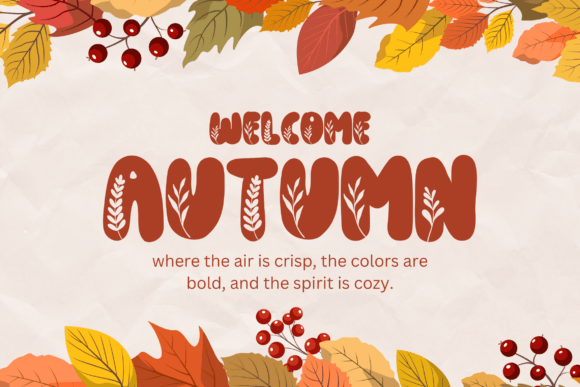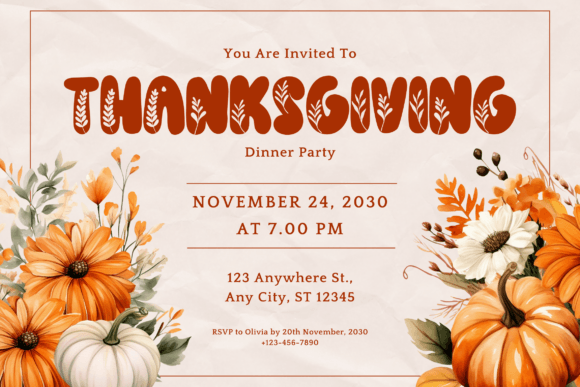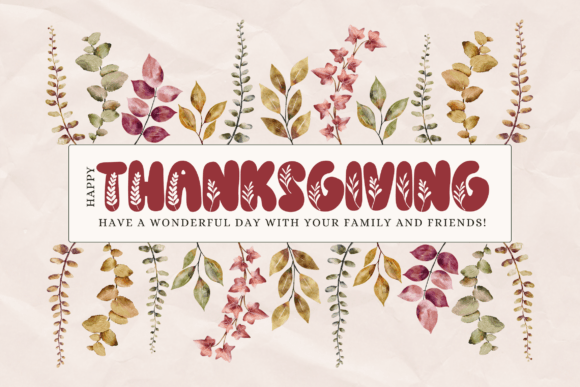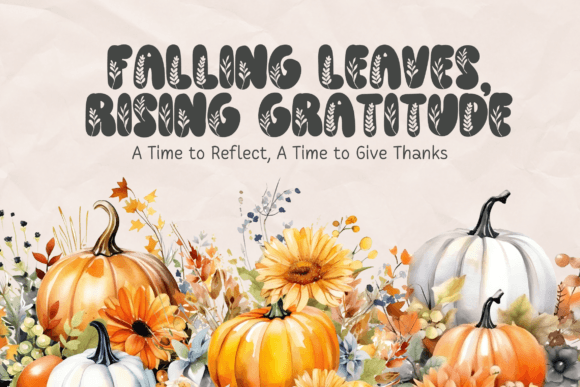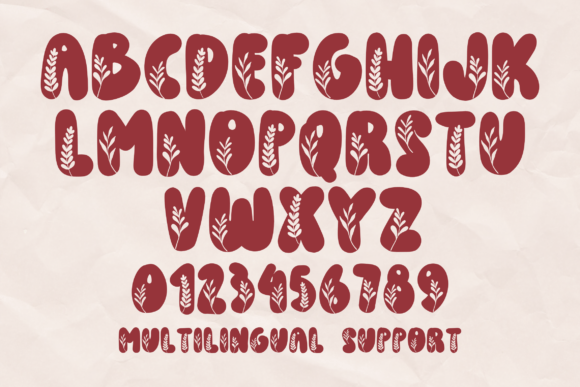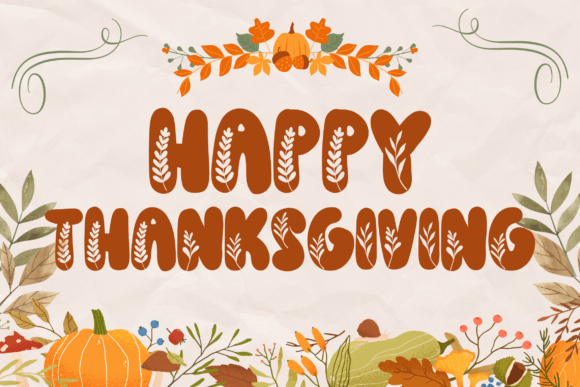
Introduction to Flower Thanksgiving Font
Immerse in the inviting warmth and captivating beauty of autumn with Flower Thanksgiving – a delightful and spirited font family.
This striking display typeface whose design is imbued with floral and foliage elements beautifully embodies the essence of the fall season Flower Thanksgiving is your key to infusing a quaint, festive flair to all your Thanksgiving and autumn-centric designs.